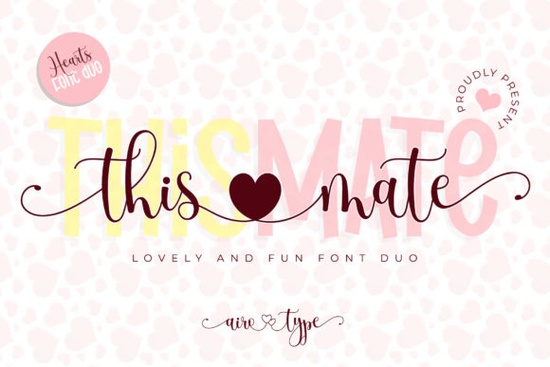
If you’re looking for a font that feels both elegant and easy to use, This Mate Font might be exactly what your next design project needs. It’s a two-in-one combo a flowing script paired with a clean sans serif giving you flexibility whether you’re designing wedding invites, branding materials, or printable wall art. The script version has graceful curves that feel personal and handcrafted, while the sans serif keeps things modern and readable. Together, they create balance without clashing.
Who is this font best for?
It works beautifully for small business owners who want their branding to feel polished but not stiff. Think boutique shops, handmade product labels, or Etsy sellers creating custom quote prints. Crafters love it too especially those working with heat transfer vinyl, sublimation, or embroidery machines. Because the script flows naturally and the sans serif stays crisp at any size, it’s reliable for both large banners and tiny tags.
If you’ve ever used fonts like Snowlet or Spicy Chicken, you’ll notice how This Mate sits comfortably between playful and refined. It doesn’t scream for attention it invites the viewer in. And if you enjoy handwritten-style fonts like Sarphine or Sweetylike, this one gives you more structure without losing personality. For those building collections, it pairs well alongside fonts from the Handwritten Font Collection great for mixing and matching across projects.
How do I get the most out of the ligatures and alternates?
OpenType features can feel intimidating if you’ve never used them before, but with This Mate Font, it’s straightforward. In programs like Photoshop or Illustrator, just turn on “Discretionary Ligatures” or “Stylistic Alternates” in the character panel. You’ll see letters connect more naturally, tails extend gracefully, and certain letter combinations transform into unique shapes. Even basic tools like Word or Pages let you browse glyphs manually look under “Insert Symbol” or “Special Characters.”
- Tip: Use the script version for headlines, quotes, or names anywhere you want warmth and movement.
- Pair it: Let the sans serif handle body text, captions, or pricing info where clarity matters most.
- Experiment: Try switching between uppercase and lowercase in the script some letters change shape entirely!
What kinds of projects does it work best on?
Here are a few real-world examples where this font shines:
- Wedding suites invitations, menus, place cards. The script adds romance; the sans serif keeps logistics legible.
- Product packaging soap labels, candle jars, boutique teas. Feels premium without being overly ornate.
- Social media graphics Instagram quote posts, Pinterest pins. Clean enough to read on mobile, stylish enough to stop the scroll.
- Wall art and prints motivational quotes, family names, seasonal decor. Scales well from 8x10 to giant canvas sizes.
- Branding kits logos, business cards, email headers. The duo lets you maintain consistency while varying tone.
You don’t need to be a professional designer to make it work. Even if you’re just starting out with print-on-demand or crafting weekend gifts, this font adapts to your skill level. Its structure guides you the spacing feels natural, the weights are balanced, and the alternates add flair without overwhelming.
Next steps if you’re considering this font
Before downloading, ask yourself:
- Do I need a font that works for both display and supporting text? → This Mate covers both.
- Am I tired of fonts that look beautiful but break when scaled down? → This one holds up.
- Do I want something that feels current but won’t look dated in a year? → The neutral elegance helps it age well.